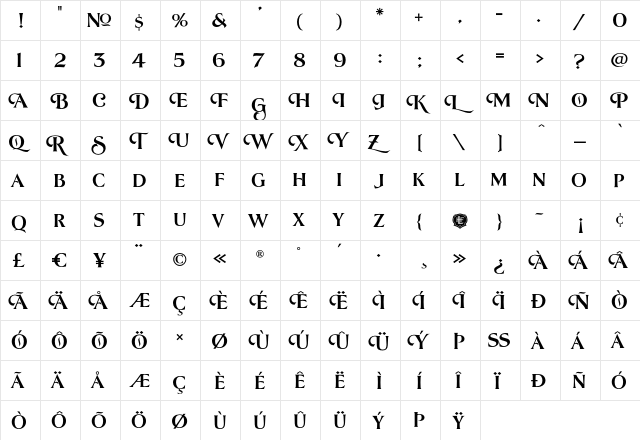
LHF Lakeside Regular 3 Regular
| Foundry | Dave Correll for Letterhead Fonts |
| Designer | Dave Correll |
Design Context for LHF Lakeside Regular 3 Typeface
LHF Lakeside Regular 3 is a composed and adaptable typeface that performs quietly and consistently across a wide range of design contexts.